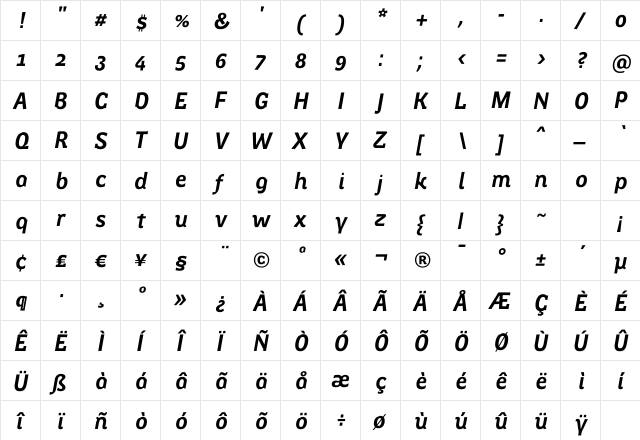
SpotkaBold Italic Regular Font Preview
Design Context for SpotkaBold Italic Typeface
SpotkaBold Italic takes a measured approach to typography — its balanced proportions and neutral character make it a reliable workhorse for both digital and print work. The slanted form adds forward momentum and visual energy. The heavy weight commands attention and anchors typographic hierarchies.
Pro Tip: Try SpotkaBold Italic for annotation and caption copy alongside an upright companion — the contrast in angle creates a dynamic but ordered typographic system.